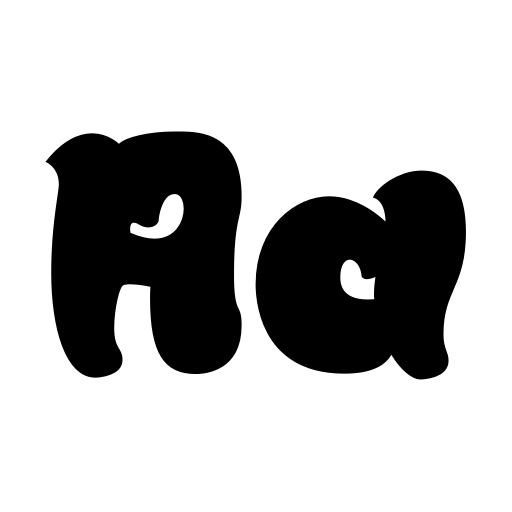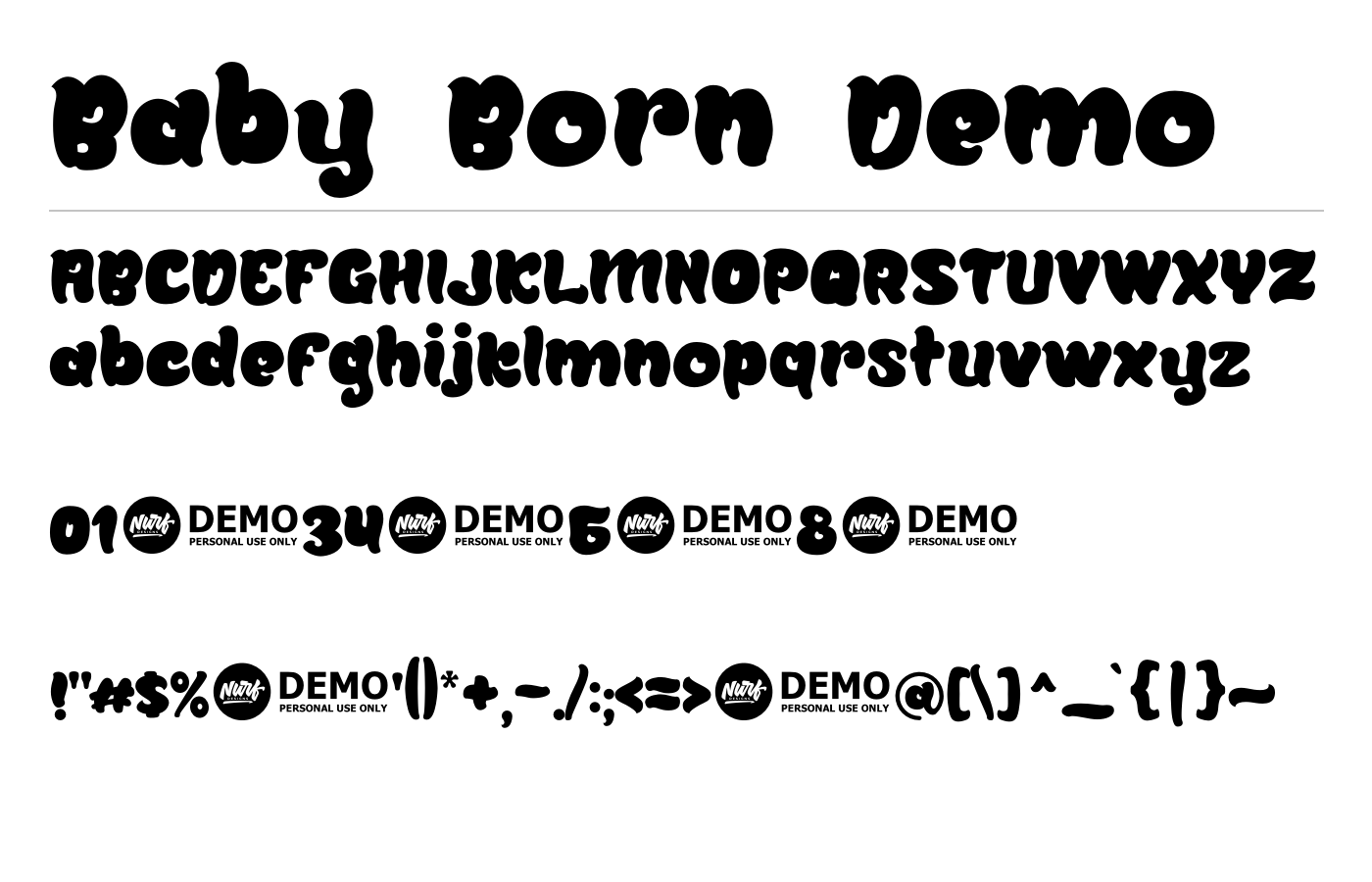
Baby Born Demo is a playful, bold display font with chunky, rounded letterforms that evoke a fun and friendly vibe. Its soft, bubbly shapes and high x-height create an approachable, childlike feel that works wonderfully for kids’ designs, logos, and casual branding. This font shines in headlines and creative projects seeking a warm, whimsical personality.
Baby Born Demo Font
About Baby Born Demo Font